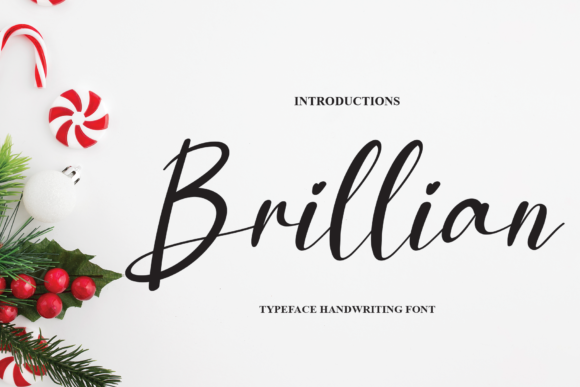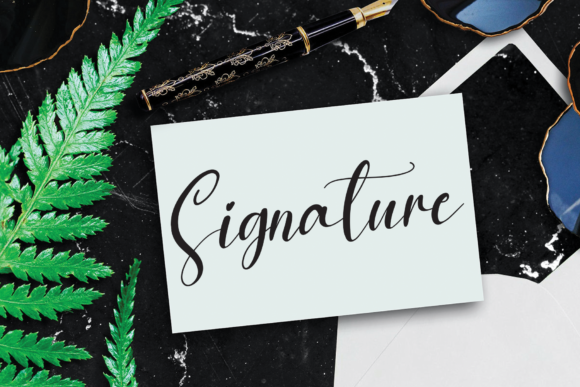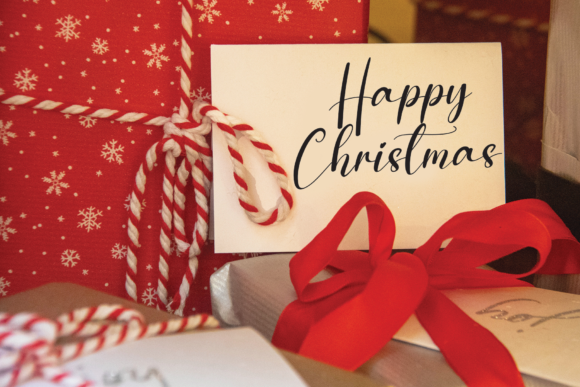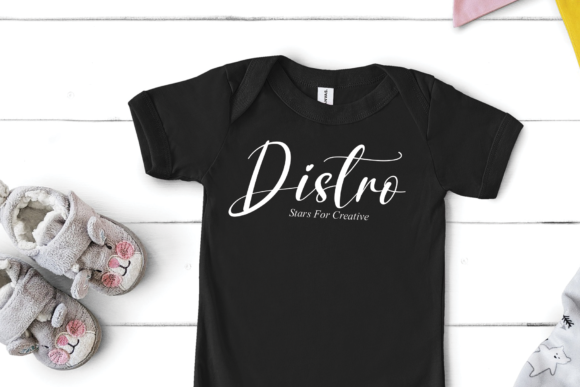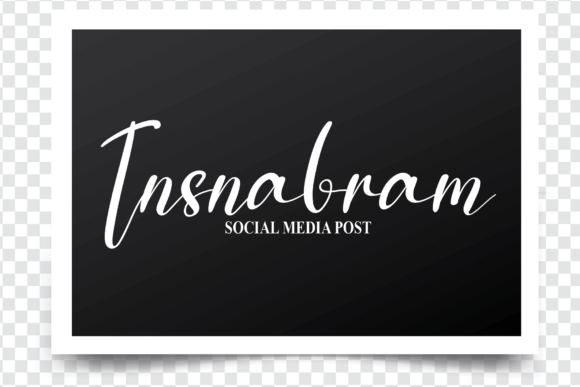
About Brillian Font
Brillian is an everlasting handwritten font. It is the perfect choice for creating eye catching logos, branding and quotes. Each character has an original and delicate touch, which will make your design more beautiful than ever.